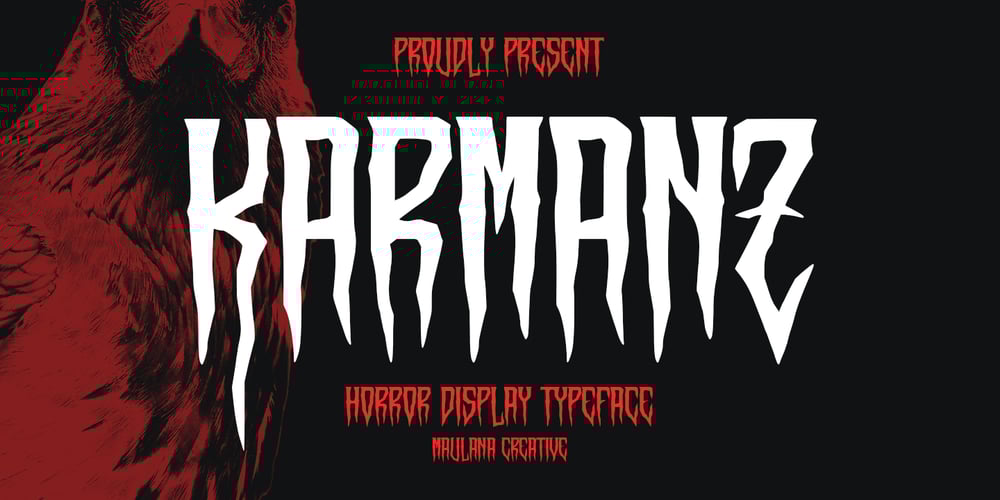
MC Karmanz
MC Karmanz font
MC Karmanz Font Family was designed by Gilang Maulana and published by Maulana Creative. MC Karmanz contains 1 styles and family package options. Karmanz display typeface. Bold stroke, fun character with a bit of ligatures and alternates. To give you an extra creative work. Karmanz display typeface support multilingual more than 100+ language. This font is good for logo design, Social media, Movie Titles, Books Titles, a short text even a long text letter and good for your secondary text font with script or serif. Make a stunning work with Karmanz display typeface.Cheers,Maulana Creative